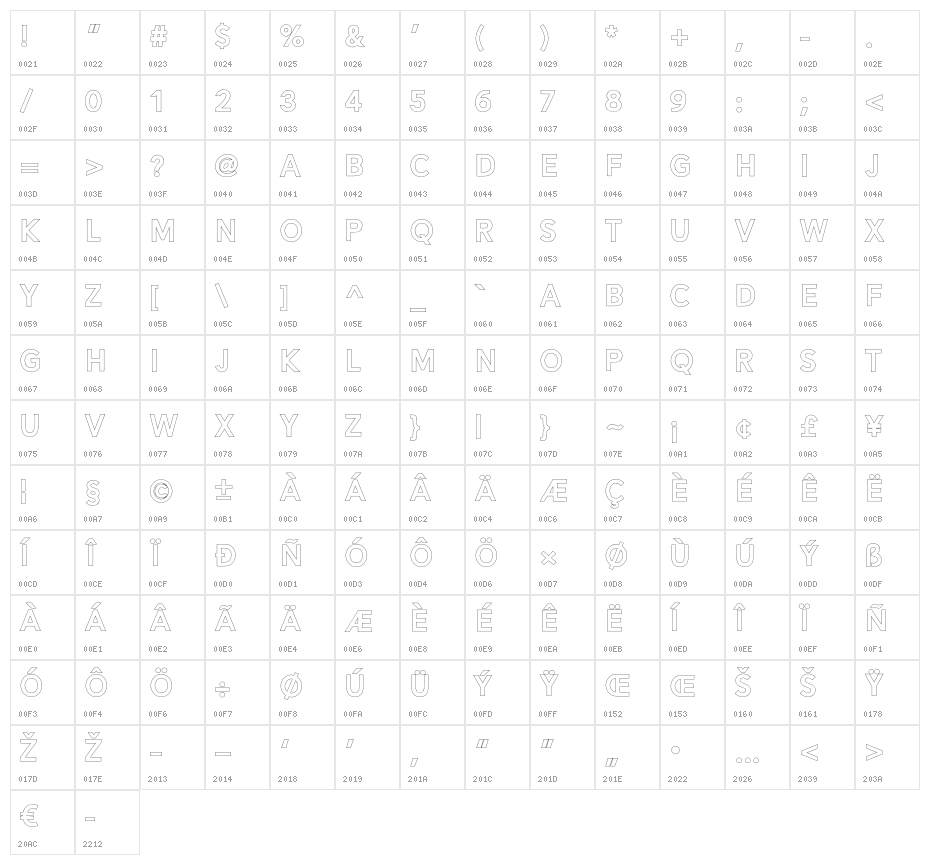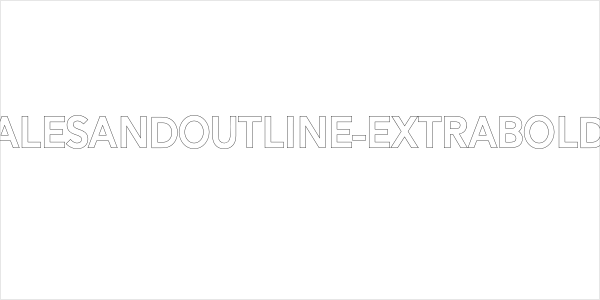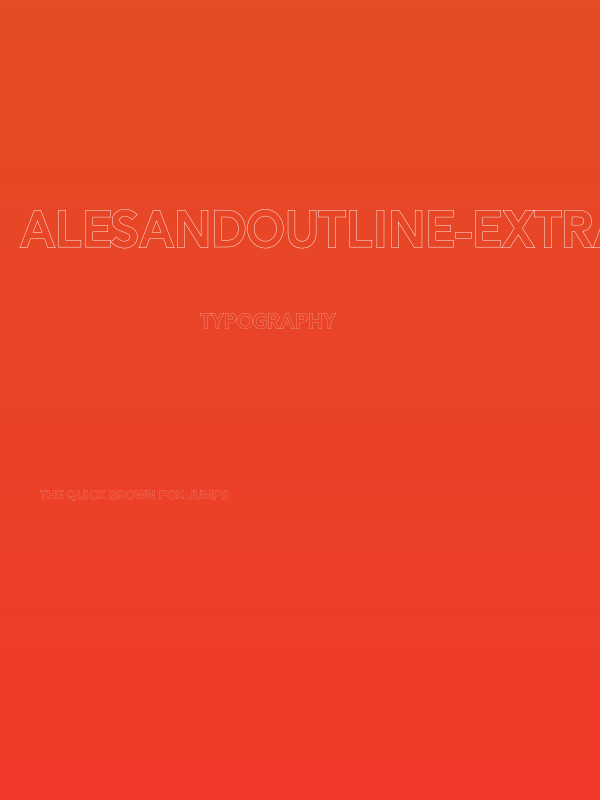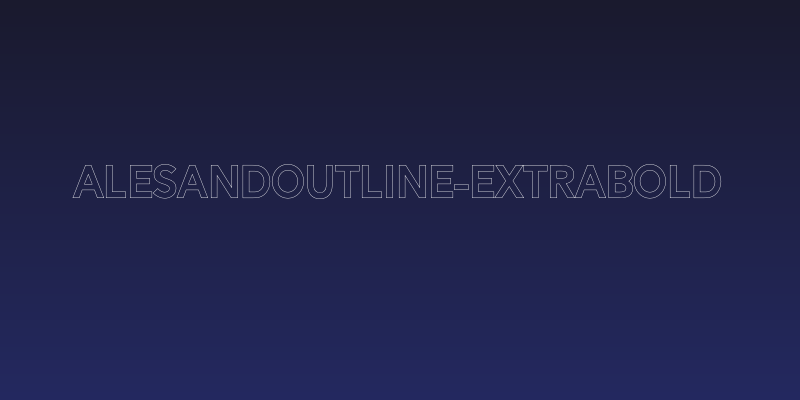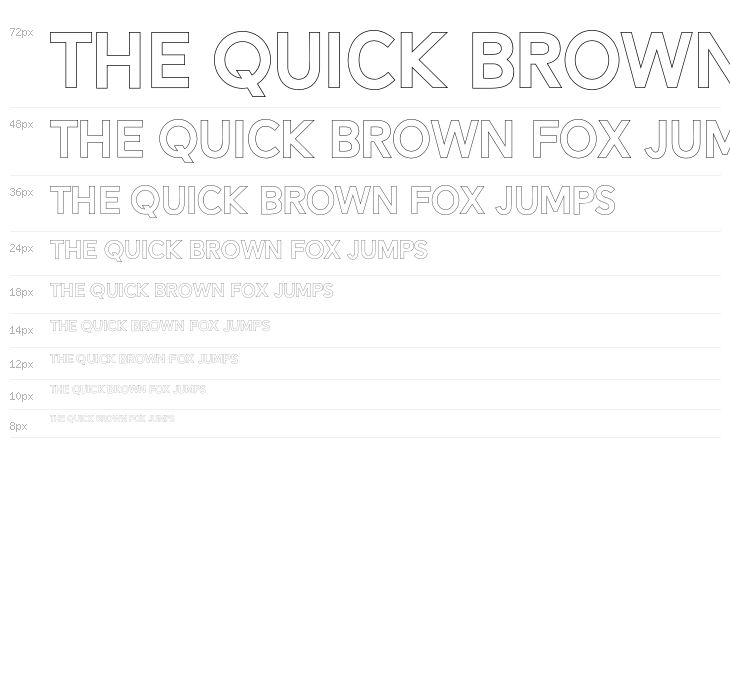
AlesandOutline-ExtraBold Font
AlesandOutline-ExtraBold Description
This font features a bold, outlined style with clean, geometric lines and a modern aesthetic. The uppercase and lowercase letters maintain a consistent width, creating a uniform appearance. The numerals and special characters follow the same design principles, ensuring a cohesive look across all elements. The outline effect adds a unique dimension, making it stand out in various design contexts. Its clarity and simplicity make it suitable for both digital and print media, where readability and impact are essential.
| Proposed Projects | Ideal for branding, headlines, posters, and digital media where a striking, modern look is desired. |